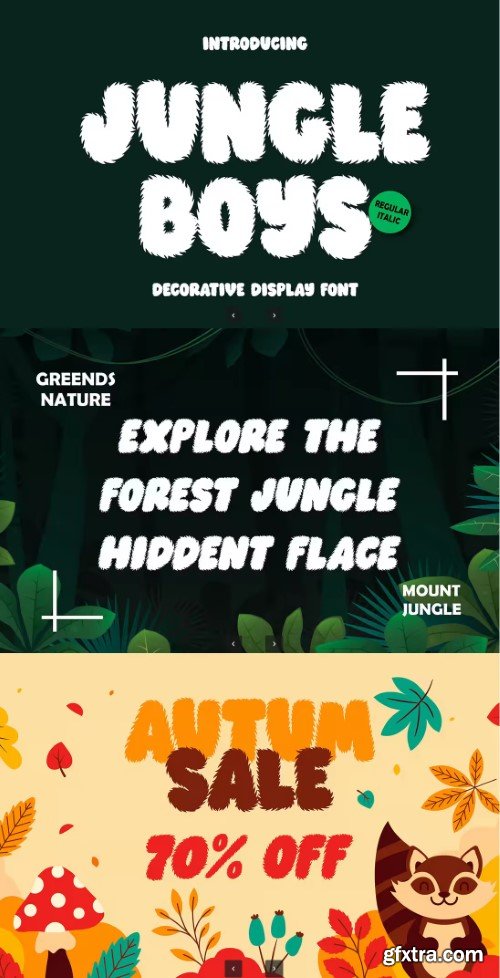
Jungle Boys – Decorative Display Font
- Jungle Boys is a bold, decorative display font made to dominate attention. Designed with Allcaps Characters, its wild, fur-like strokes give a primal and playful feel—perfect for projects that need to shout with confidence. Whether you're crafting poster titles, YouTube thumbnails, comic headers, or digital adventures, Jungle Boys brings a fresh and untamed vibe to your layout. Wild and Playful: Best Display Font for Loud Designs Seeking a decorative font that instantly captivates your viewer? Jungle Boys delivers a fun, jungle-inspired texture with bold readability. This Allcaps display typeface is ideal for creative campaigns, gaming visuals, product packaging, and even children’s media content. No matter the platform, this font keeps your headlines roaring with character.